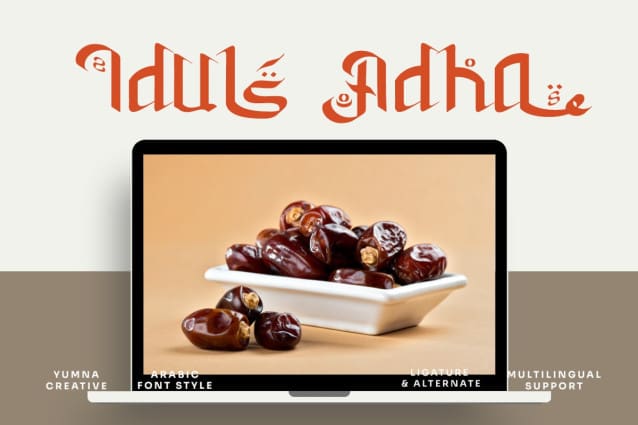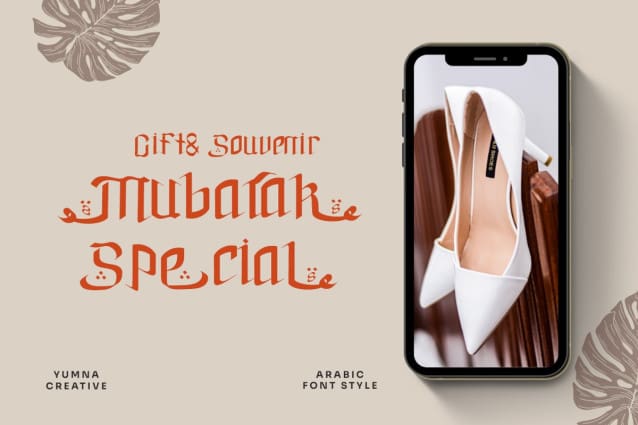
Basmallahu Arabic Font
Basmallahu Arabic Font is a beautifully crafted Ramadan Arabic font style that is perfect for your creative projects. Designed with a modern touch, this font features elegant calligraphic strokes and bold lines that make it stand out from the crowd. Its unique style is ideal for designing Ramadan-related graphics, such as greeting cards, banners, and social media posts.